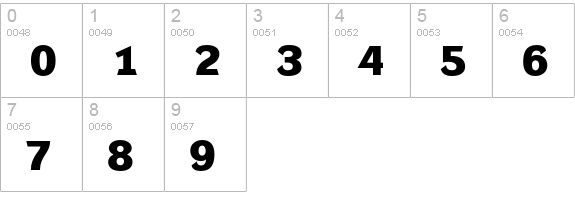
Introducing Dynamo B X E font, a striking and modern typeface that exudes energy and dynamism. With its bold, angular letterforms and unique design elements, this font is perfect for making a bold statement in your designs. Whether you're creating a poster, logo, or website, Dynamo B X E font will grab the attention of your audience and leave a lasting impression. What's even better is that Dynamo B X E font is completely free to download at FontsMarket.com. Yes, you read that right – you can add this powerful font to your collection without spending a dime. So why wait? Download Dynamo B X E font now and let your creativity shine with this impressive and versatile typeface.